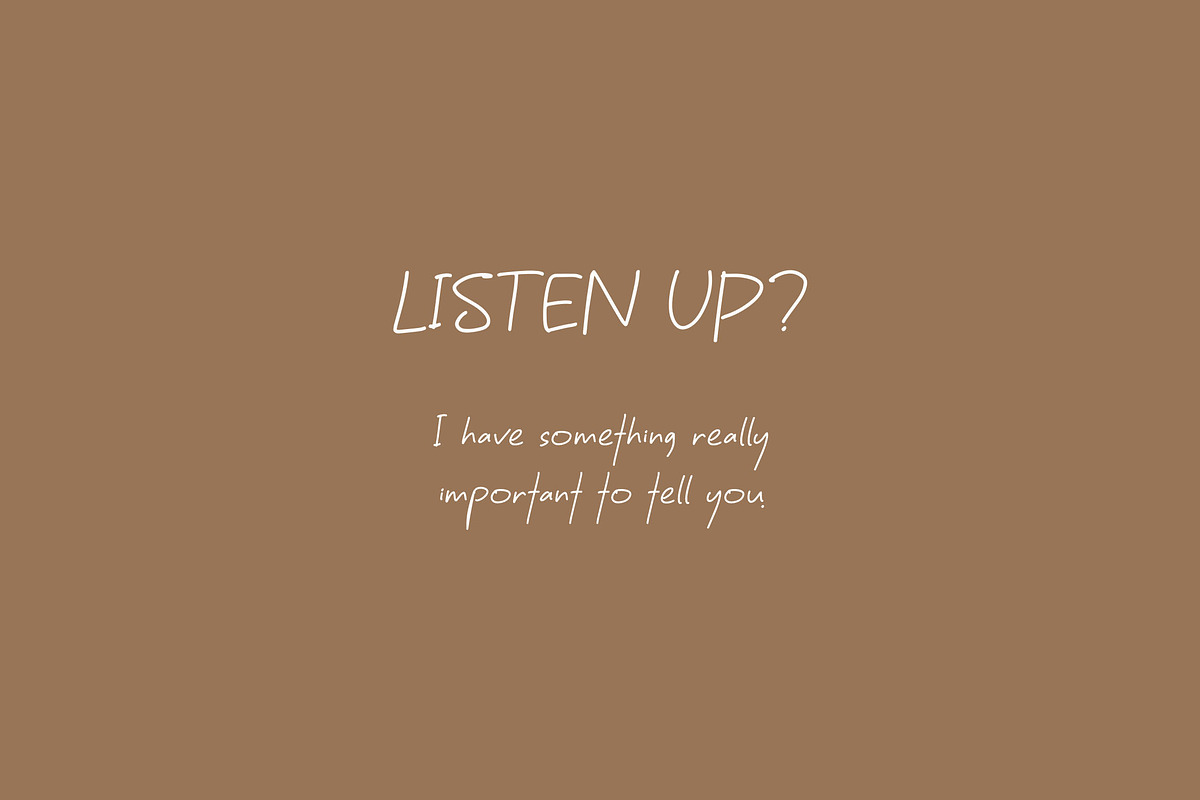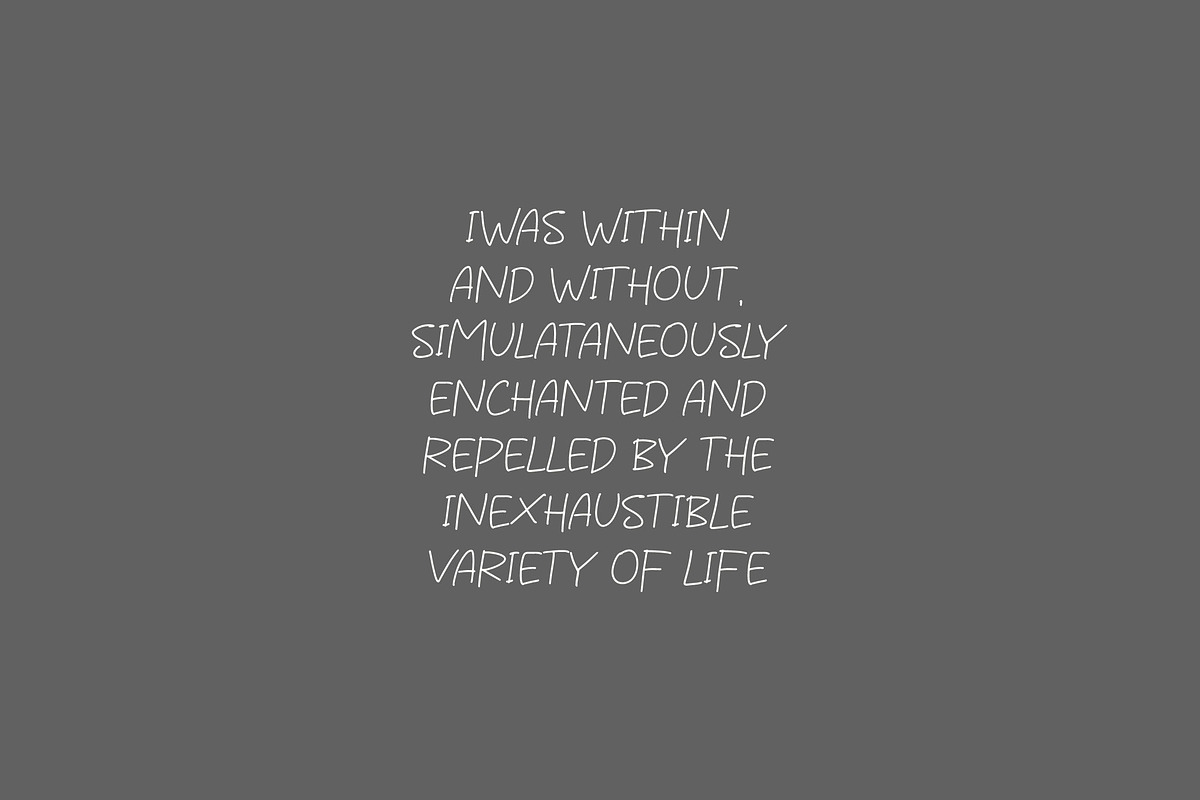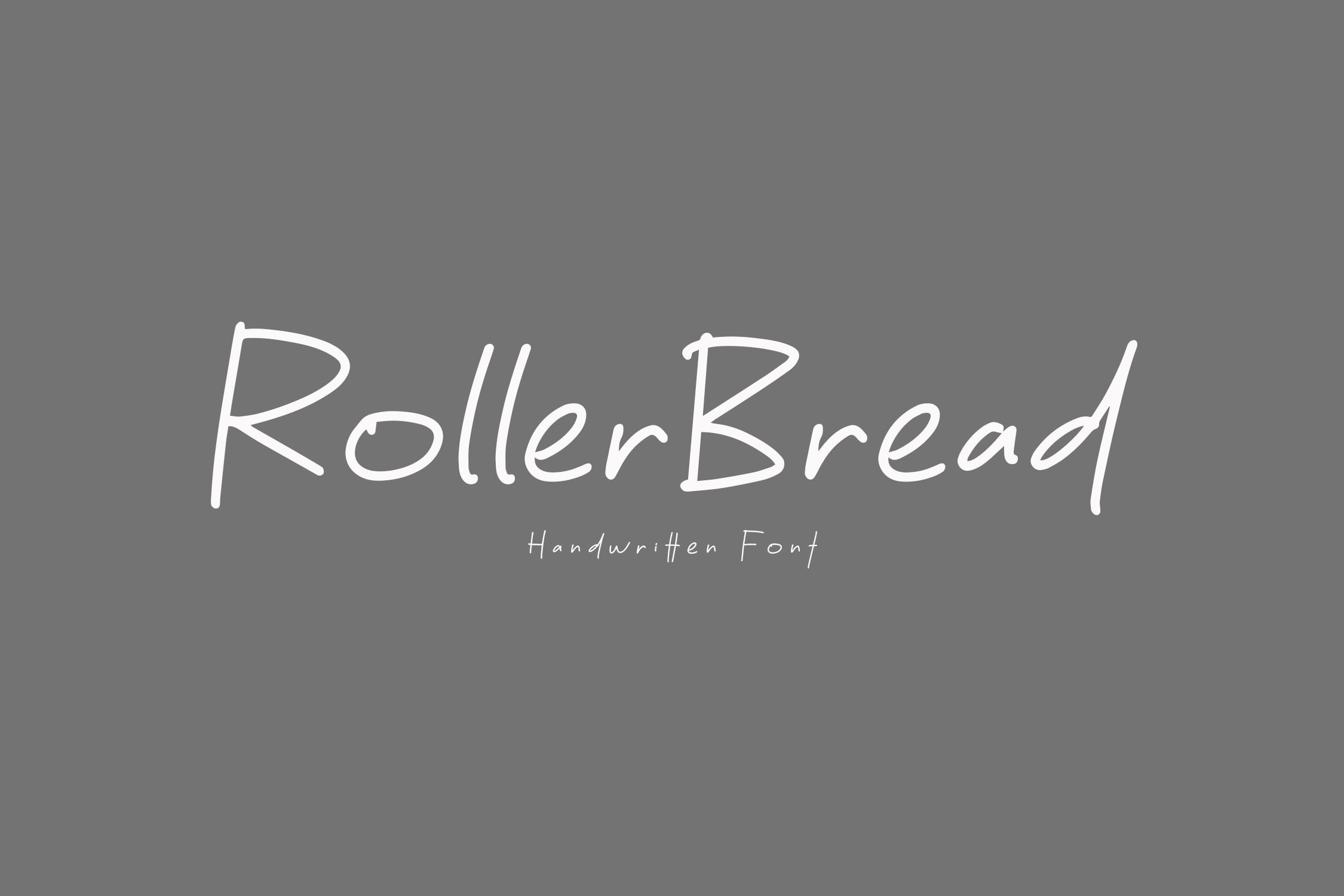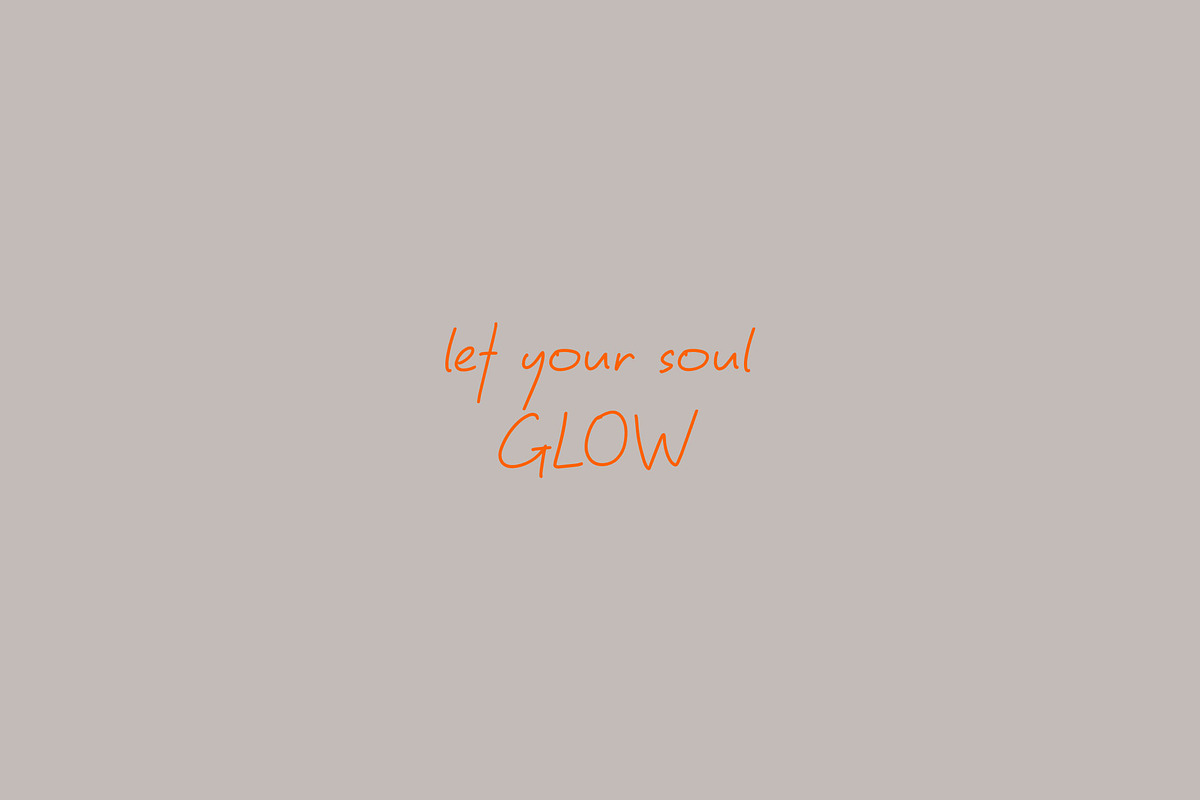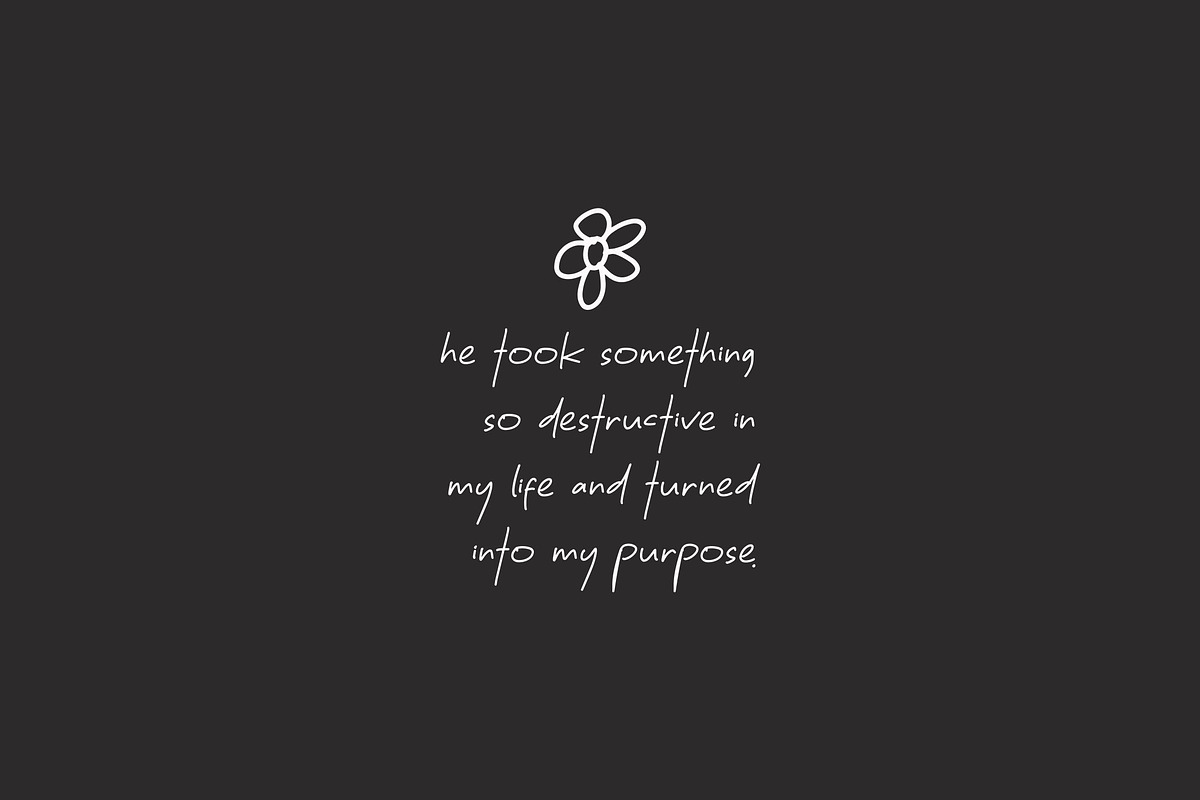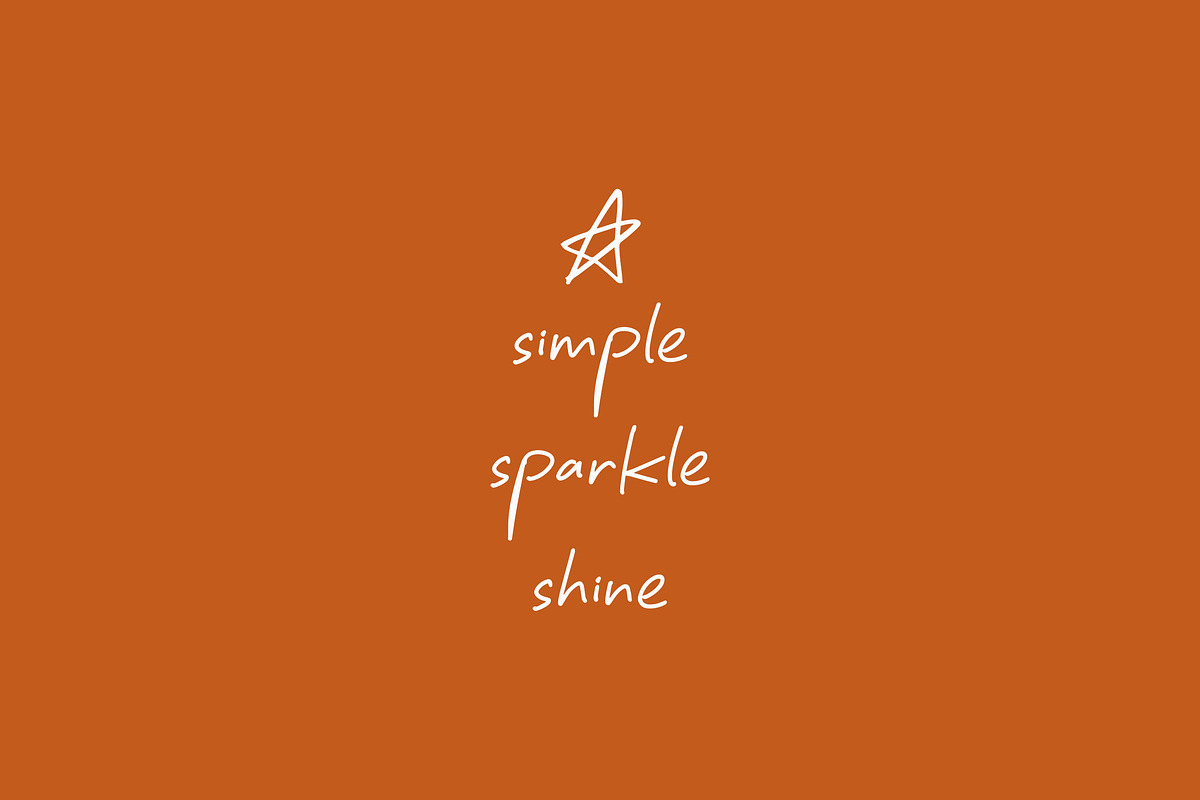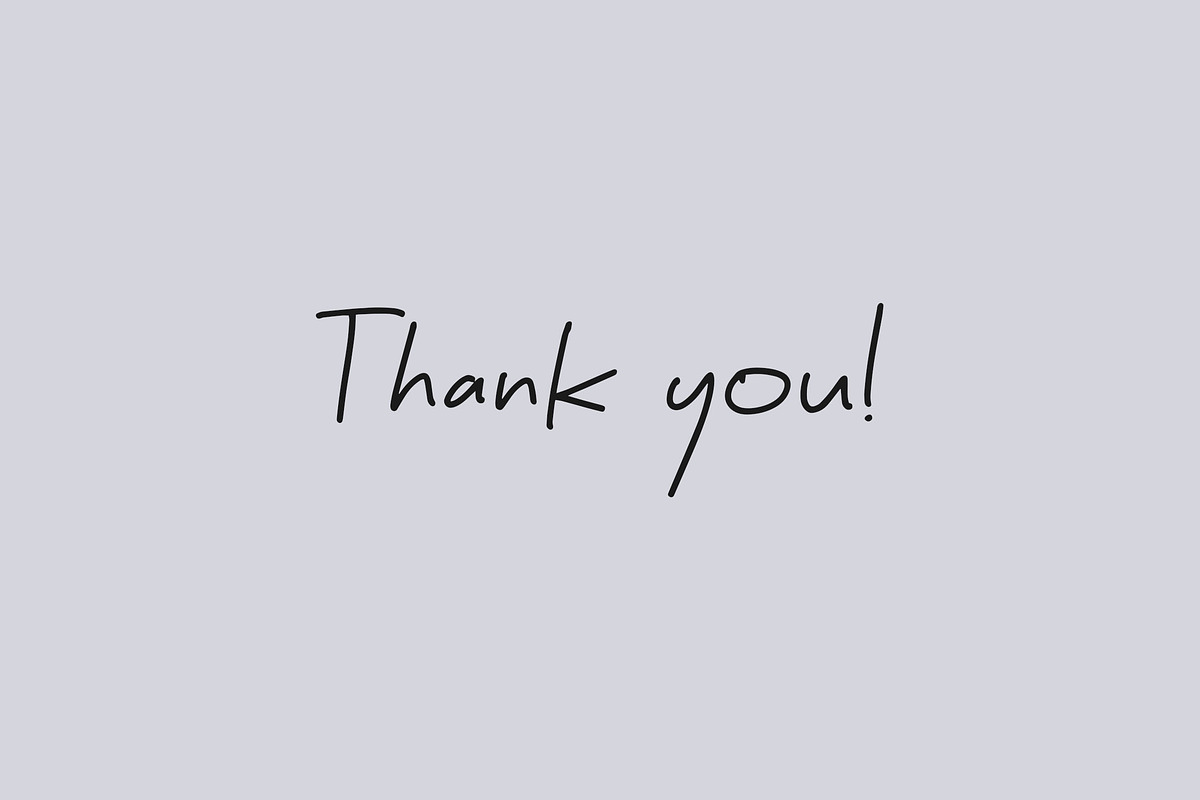
Roller Bread Handwriting Font
Roller Bread - Monoline Handwriting Font
Roller Bread is a smooth, monoline handwriting font designed with unique, elegant character shapes. Perfect for enhancing your graphic projects, this font brings a fresh, modern touch to branding, packaging, invitations, and more. Its clean and versatile style makes your designs stand out with simplicity and creativity.
- Includes ligatures, stylistic alternates, and swashes